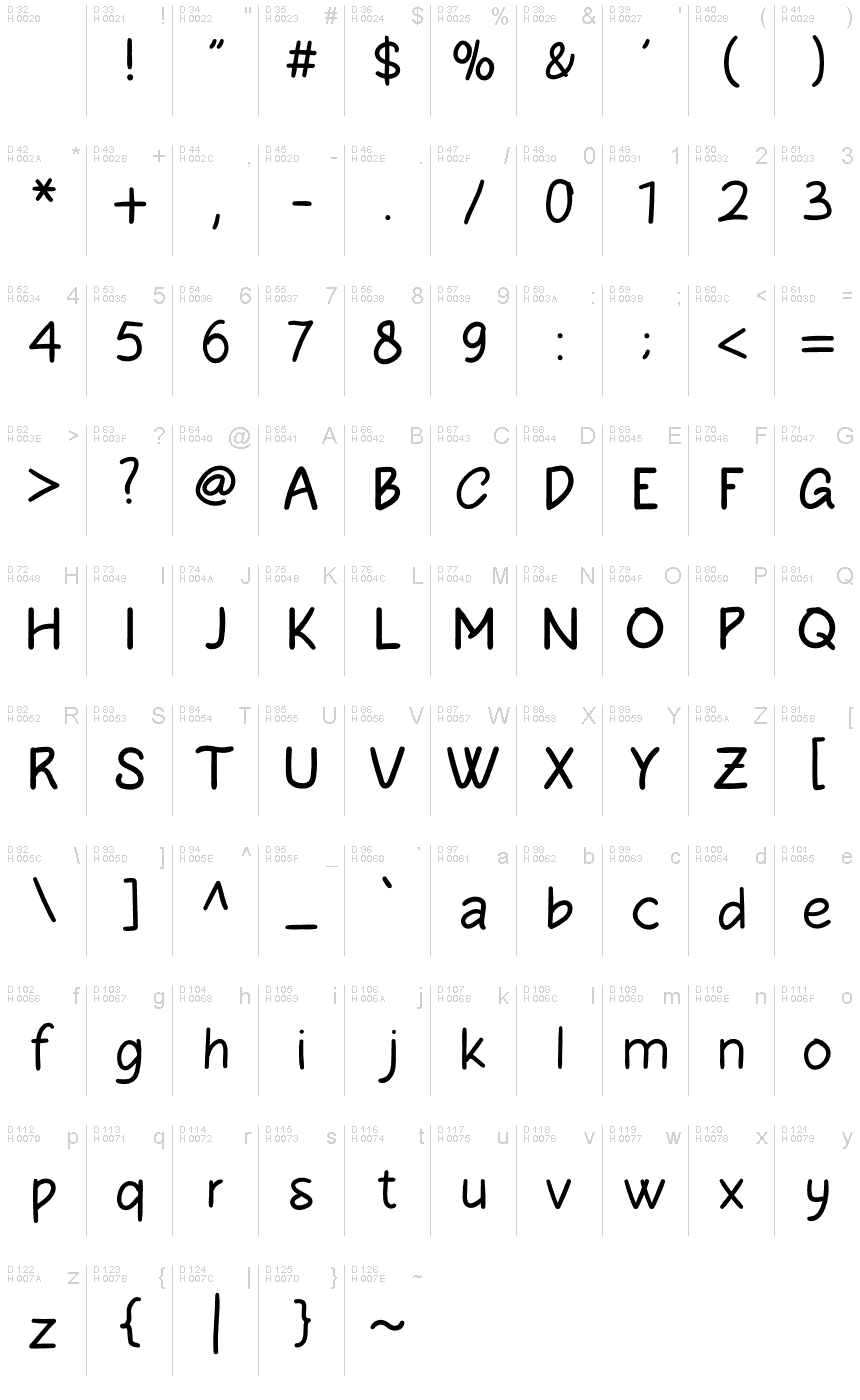
Wentworth
Wentworth, a semi-light handwritten font designed by Muharima Rasyid, is a versatile typeface perfect for projects that require a personal and approachable touch. With its natural curves and playful strokes, Wentworth is ideal for branding materials such as logos, business cards, and packaging designs. This font can also be used for invitations, greeting cards or social media graphics to add an authentic and friendly vibe. Its semi-light weight makes it easy to read on digital platforms while maintaining its unique charm. Give your designs a human touch with Wentworth!